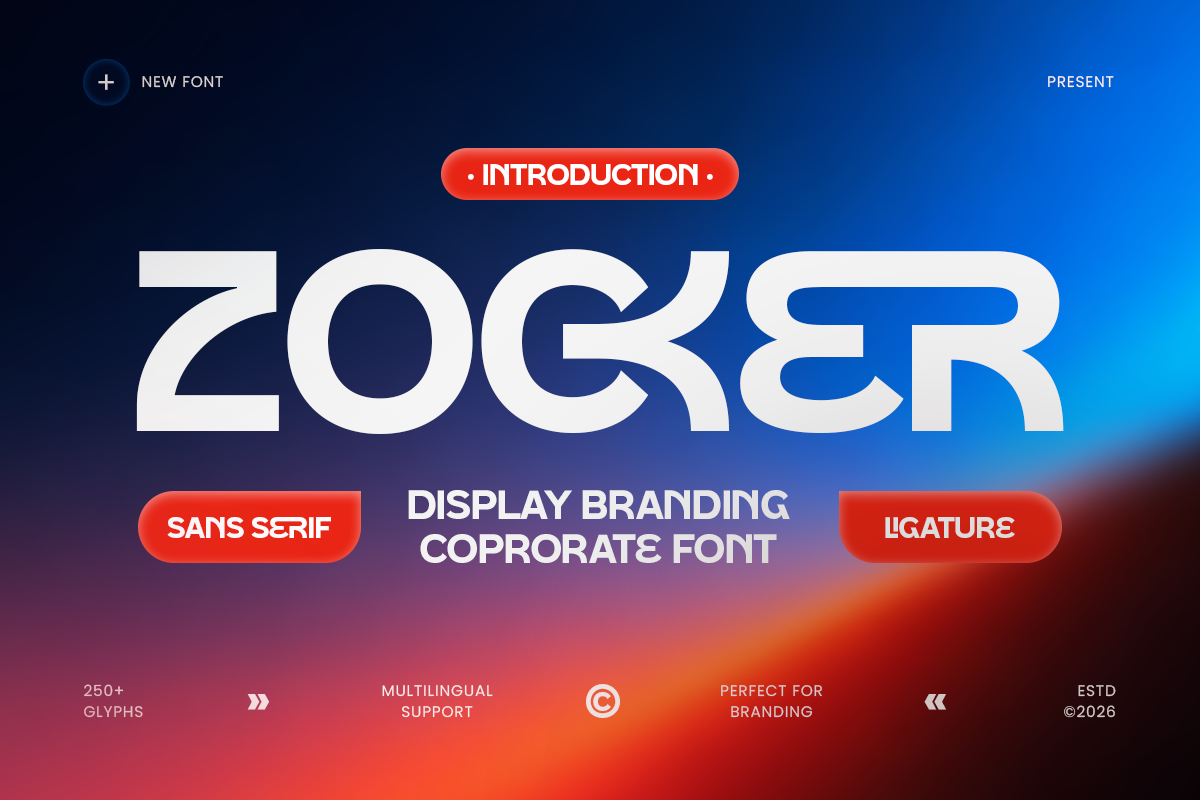
Zocker
-Display Branding Corporate FontZocker – Display Branding Corporate Font
ZOCKER is a display branding corporate font crafted for businesses that need a strong, professional, and memorable visual identity. Its bold display character combines modern proportions with a clean, confident appearance, making ZOCKER a powerful choice for contemporary corporate typography.
Designed for corporate branding, logos, business identities, presentations, advertising, signage, packaging, and editorial layouts, ZOCKER brings clarity and authority to every application. Its strong letterforms work especially well for headlines, company names, campaign graphics, social media content, and professional marketing materials.
ZOCKER offers the versatility needed for modern brands across technology, finance, consulting, retail, lifestyle, and creative industries. Whether used as a striking logo font or an impactful display typeface, it helps create a cohesive and recognizable brand presence across digital and print media.
ZOCKER – Display Branding Corporate Font Features
Bold display letterforms with a professional corporate character
Clean and contemporary design for modern brand identities
Ideal for corporate logos, headlines, and business branding
Perfect for presentations, advertising, packaging, and signage
Suitable for both digital and print applications
OpenType features for creative typographic flexibility